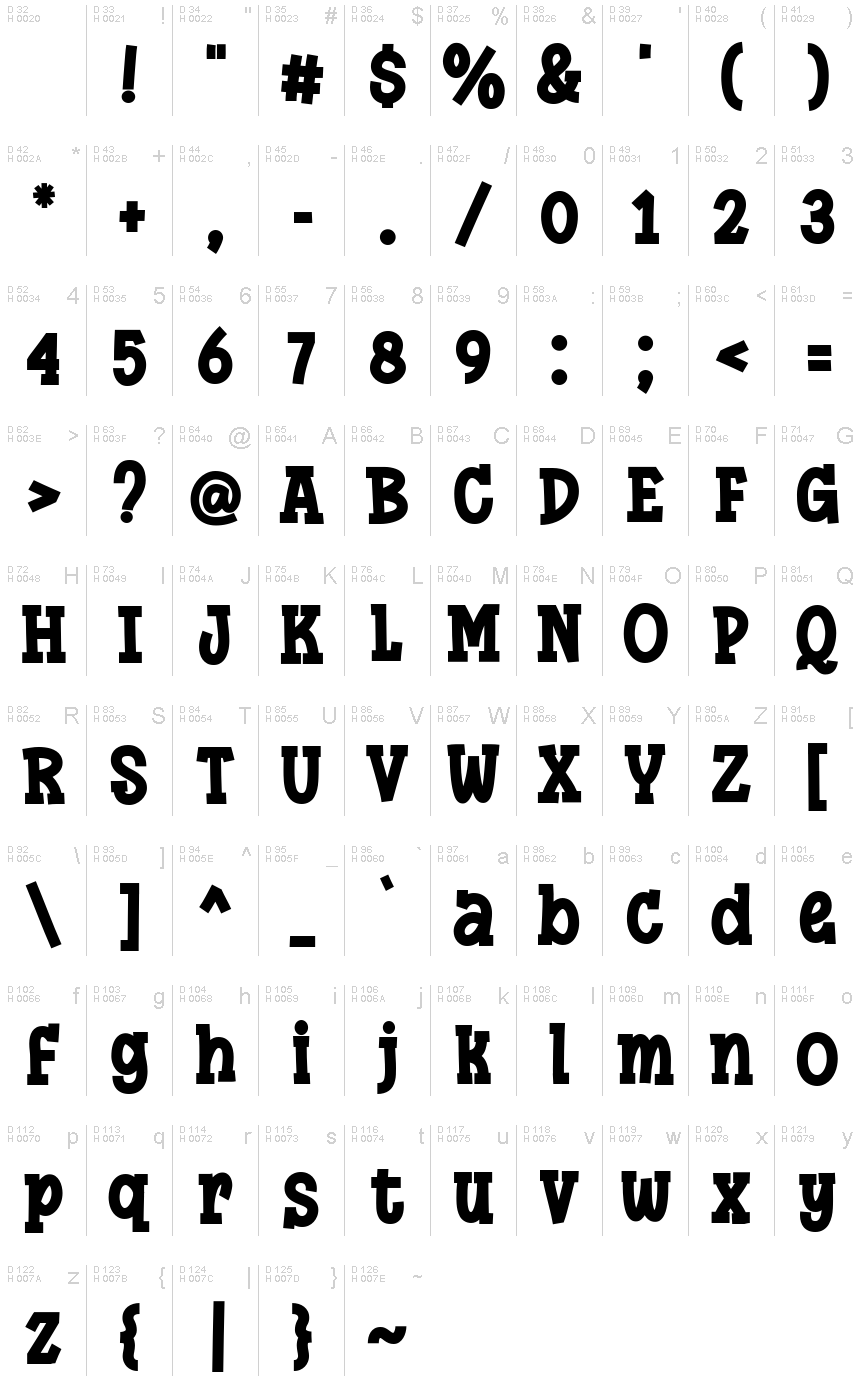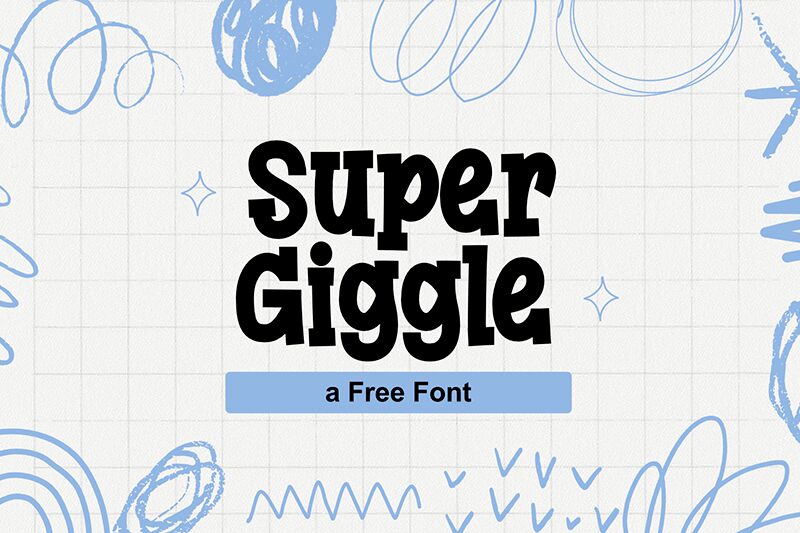
Super Giggle
Super Giggle font, designed by fsuarez913, is a captivating display font exuding playful cartoon charm. Its bold and whimsical style makes it an ideal choice for projects aiming to capture attention with a touch of humor and excitement. The exaggerated curves and fun letterforms bring a lively energy, making it perfect for children's media, comic headings, or any creative endeavor seeking to stand out.